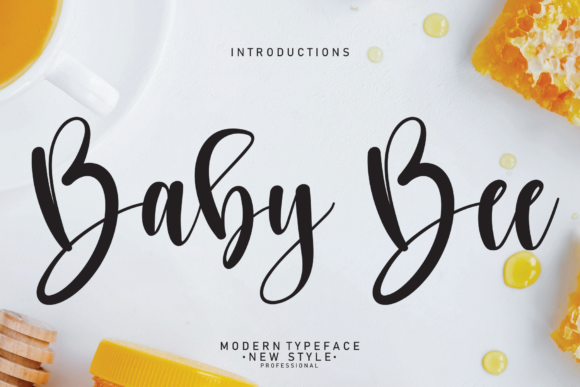
Enter the world of Baby Bee Font, a captivating script font born from the union of imagination and creativity. This font will bewitch you with its alluring curves, delicate strokes, and a touch of elegance that dances with every letter. Whether you're a passionate fashion designer seeking fonts that ignite your creations or an ardent DIY enthusiast chasing artistic flair, Baby Bee is your muse, ready to transform your ideas into masterpieces.
Immerse yourself in the enchanting realm of Baby Bee, a font that oozes elegance, capturing hearts with its every curve. Its delicate strokes dance across the page, leaving a trail of beauty and sophistication in their wake. With Baby Bee, your designs will exude an air of refinement and grace, leaving a lasting impression on the world.
Baby Bee is more than just a font; it's an invitation to unlock your creative potential, to embark on a journey where imagination reigns supreme. Let your creativity bloom as you weave words into works of art, transforming ordinary designs into captivating expressions of your unique style. Dive into the boundless possibilities of Baby Bee and witness the magic unfold before your eyes.
So, whether you're a seasoned designer or an aspiring artist, a lover of Instagram aesthetics or a devotee of calligraphy, Baby Bee is your font soulmate, destined to elevate your creations to dizzying heights. Embrace the beauty of Baby Bee and let your designs blossom into enchanting works of art. Download Baby Bee today and unlock the boundless realm of creativity that awaits.